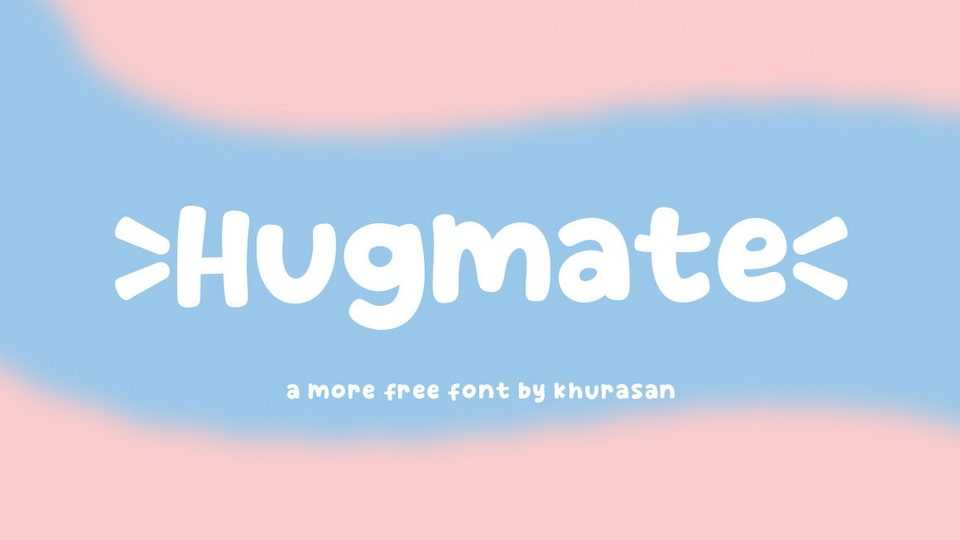
Download Hugmate font, a playful and cute handwritten typeface. Hugmate is perfect for posters, logos, magazines, book covers, banners, and many more lovely designs.